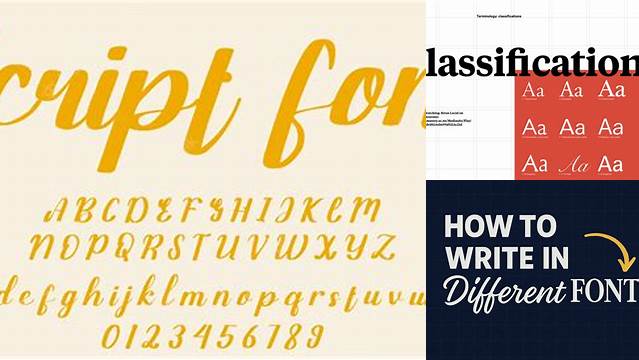
3000 In Different Fonts: A Comprehensive Guide
Hey guys! Ever wondered how the number 3000 looks in different fonts? Well, you're in for a treat! This guide dives deep into exploring the visual representation of 3000 across a vast range of fonts, from the classic to the quirky. We'll not only look at how it appears but also discuss the nuances each font brings to this significant number. Let’s get started and explore the fascinating world of typography and the number 3000!
What is Typography and Why Does it Matter?
Before we jump into the specifics of how 3000 looks, let's quickly touch on typography. Typography is the art and technique of arranging type to make written language legible, readable, and appealing when displayed. The choice of font can drastically change the perception of the content. A formal font might convey professionalism, while a playful font could indicate fun and creativity. When we consider displaying 3000 in different fonts, we're not just changing the look; we're changing the message and the feel of that number.
Understanding Font Families
Fonts are usually grouped into families, such as Serif, Sans-Serif, Script, and Decorative. Serif fonts have small decorative strokes (serifs) at the end of each letter, giving them a traditional and formal appearance. Sans-serif fonts, on the other hand, lack these strokes and appear cleaner and more modern. Script fonts mimic handwriting and are often used for invitations and artistic purposes. Decorative fonts are the wildcards, with unique styles that can range from futuristic to whimsical. Understanding these families helps us appreciate the variety of ways 3000 in different fonts can be visualized.
The Impact of Font Choice on Perception
The font you choose for 3000 can heavily influence how that number is perceived. A bold, strong font might emphasize its magnitude, while a delicate font might soften its impact. Think about contexts where 3000 is used – maybe it's a sales target, a year, or an amount of money. The font should align with the message you want to convey. That's why exploring 3000 in different fonts is not just an aesthetic exercise, but a crucial part of communication.
Exploring 3000 in Serif Fonts
Serif fonts are known for their classic and formal appearance, making them a popular choice for traditional documents and publications. When we look at 3000 in different fonts within the serif family, we see a range of styles that each subtly alter the number's presence. These fonts often convey a sense of history, reliability, and sophistication.
Times New Roman: The Timeless Classic
Times New Roman is arguably one of the most recognizable serif fonts. Its balanced proportions and clear readability make it a staple in academic and professional settings. When displaying 3000 in Times New Roman, the number appears solid and dependable. The serifs add a touch of formality, making it suitable for contexts where seriousness and clarity are paramount.
Garamond: Elegance and Readability Combined
Garamond is another classic serif font known for its elegance and readability. It has a slightly more refined appearance than Times New Roman, with delicate serifs and a graceful overall design. Displaying 3000 in Garamond lends it a touch of sophistication, making it a great choice for more artistic or literary applications. The subtle curves and elegant strokes elevate the number, suggesting quality and refinement.
Georgia: Designed for the Digital Age
Georgia is a serif font specifically designed for on-screen readability. Its wider proportions and clear strokes make it easy to read even at smaller sizes. When visualizing 3000 in Georgia, the number appears strong and legible, even on screens with lower resolutions. This makes Georgia a practical choice for websites and digital documents where clarity is key.
Diving into Sans-Serif Fonts for 3000
Sans-serif fonts, characterized by their clean and modern look, are a staple in contemporary design. They lack the serifs found in traditional fonts, giving them a streamlined and minimalist appearance. Exploring 3000 in different fonts from the sans-serif family reveals a versatile range of styles, each bringing its own unique flavor to the number.
Arial: The Ubiquitous Sans-Serif
Arial is one of the most widely used sans-serif fonts, known for its clean lines and excellent readability. It's a versatile font that works well in a variety of contexts. When 3000 is displayed in Arial, it appears straightforward and modern. Its neutrality makes it a safe choice for situations where clarity and simplicity are desired.
Helvetica: The Epitome of Modern Design
Helvetica is often considered the quintessential sans-serif font, celebrated for its clarity and timeless appeal. Its clean, geometric forms give it a contemporary edge. Visualizing 3000 in Helvetica projects a sense of modernity and efficiency. The font’s neutrality allows the number to stand out without being overshadowed by stylistic flourishes.
Open Sans: A Friendly and Approachable Option
Open Sans is a humanist sans-serif font designed with a more open and friendly appearance. Its slightly wider proportions and clear letterforms make it highly readable on screens. When looking at 3000 in Open Sans, the number feels approachable and inviting. This font is particularly well-suited for websites and user interfaces where a welcoming feel is important.
So, the next time you need to display 3000, remember that the font you choose is more than just a matter of aesthetics – it's a powerful tool for conveying meaning and making a lasting impression. Happy font hunting, guys!